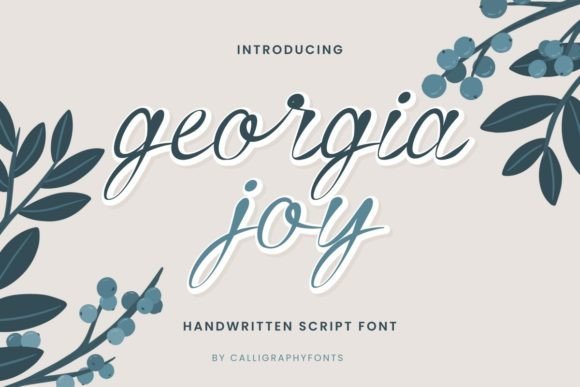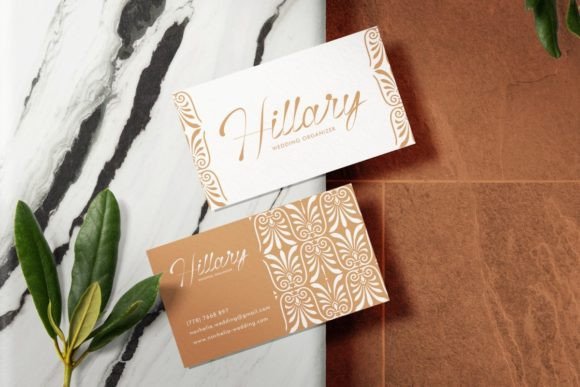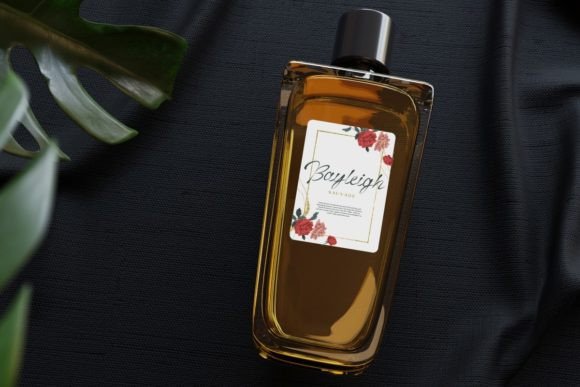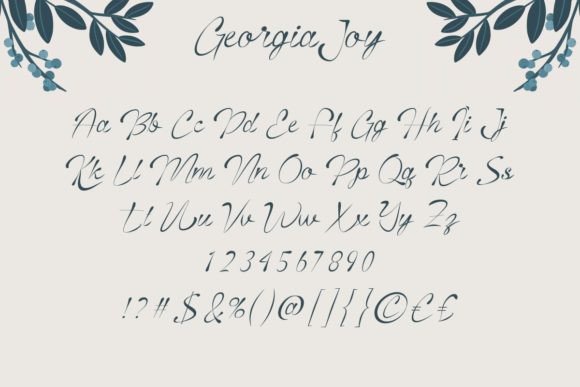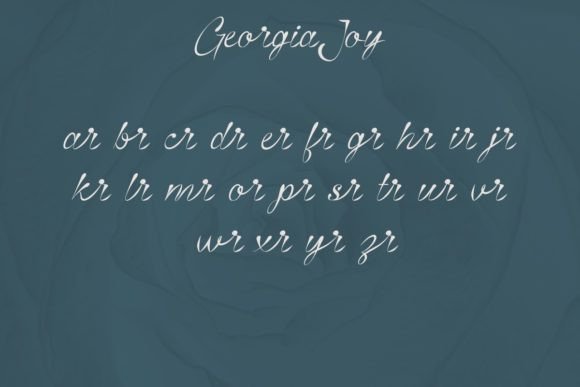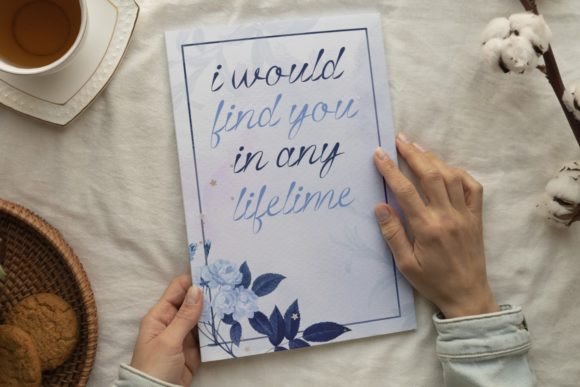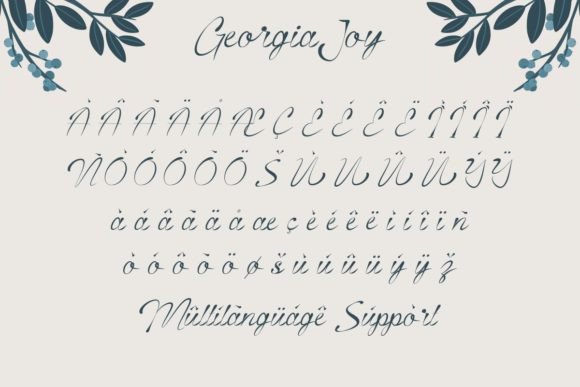
Unleash Your Creativity with the Perfect Script Font
Have you ever sat down with a blank sheet of paper, a pen in hand, and let your imagination run wild? That’s the moment when the magic happens, and your creative thoughts begin to flow. For designers, this moment is a crucial part of their process, and the right tools can make all the difference. That’s where the Georgia Joy Font comes in – a beautiful script font that captures the essence of cursive writing and adds a touch of elegance to any design.
With its casual look and carefully crafted characters, the Georgia Joy Font is perfect for a wide range of industries, from fashion and beauty to publishing and photography. Its ease of readability and unique aesthetic make it a valuable asset for designers looking to create stunning visuals that capture the attention of their audience.
Georgia Joy Font Key Features
- Font Family: Georgia Joy, a script font with a beautiful and elegant feel.
- Font Size: Offers 6 font sizes, ranging from 12 to 72 points.
- Resolution: Designed for use at high resolutions (up to 300 DPI) for optimal clarity and legibility.
- Unique Characteristics: Features a flowing, handwritten style with subtle flourishes and a warm, inviting tone.
Georgia Joy Font Review
When I first laid eyes on Georgia Joy, I knew I was in for a treat. This elegant script font ✨ immediately caught my attention with its whimsical feel and beautiful curves. It’s perfect for creating a warm, inviting atmosphere in any design project. I love how it adds a touch of sophistication and charm to text-based elements.
One of the standout features of Georgia Joy is its versatility. It can be used for a wide range of applications, from greeting cards and invitations to branding and packaging design. The font also comes in a variety of weights and styles, making it easy to customize to suit your needs.
- ⚠️ The font may not be the best choice for digital displays, as it can appear slightly distorted on certain screens.
- ⚠️ The script style may not be suitable for large blocks of text, as it can become difficult to read.
Overall, I’m thoroughly impressed with Georgia Joy. It’s a beautiful, high-quality font that’s perfect for designers looking to add a touch of elegance and whimsy to their projects. While it may have some limitations, the benefits far outweigh the drawbacks. I highly recommend adding Georgia Joy to your font collection.
For the most effective use of the Georgia Joy font, use it for:
– Titles and headings
– Body text in formal documents
– Quotes and excerpts
– Branding and logo design
– Digital signage and displays
Alternatives to Georgia Joy Font
Playfair Display is a luxurious, high-end serif font suitable for formal and elegant designs. It features intricate details and a classic feel. Use it for high-end branding, magazine covers, and special occasion invitations.
Compared to Georgia Joy Font, Playfair Display has a more formal and luxurious feel, making it a better choice for high-end designs. Georgia Joy Font is more versatile and suitable for everyday use, while Playfair Display is more suitable for special occasions.
Lato is a modern sans-serif font that is highly legible and versatile. It is suitable for a wide range of designs, from corporate branding to digital products. Use it for body text, headings, and titles.
Lato is a more modern and minimalist alternative to Georgia Joy Font. While Georgia Joy Font has a more classic feel, Lato is more contemporary and suitable for modern designs.
Merriweather is a classic serif font that is highly legible and suitable for body text. It features a traditional feel and is suitable for formal and informal designs. Use it for books, articles, and other written content.
Merriweather is a more classic and traditional alternative to Georgia Joy Font. While Georgia Joy Font has a more modern feel, Merriweather is more suitable for formal and traditional designs.
Didot is a luxurious serif font that is highly legible and suitable for formal and elegant designs. It features intricate details and a classic feel. Use it for high-end branding, magazine covers, and special occasion invitations.
Yes, Georgia Joy is designed with digital use in mind. It features optimized spacing, kerning, and hinting to ensure crisp and clear rendering on various digital devices and platforms, including desktops, laptops, tablets, and smartphones.